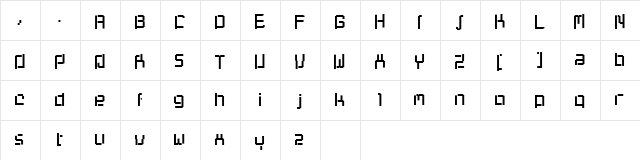
progenisis Regular
| Designer | Dustin Norlander |
Design Context for progenisis Typeface
progenisis is a composed and adaptable typeface that performs quietly and consistently across a wide range of design contexts.